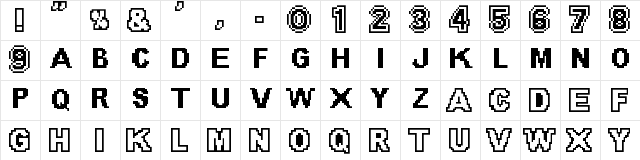
Complete Super Mario 64 Beta Font Regular glyph index. Displaying only characters natively supported by Super Mario 64 Beta Font Regular font.
Super Mario 64 Beta Font is a composed and adaptable typeface that performs quietly and consistently across a wide range of design contexts.